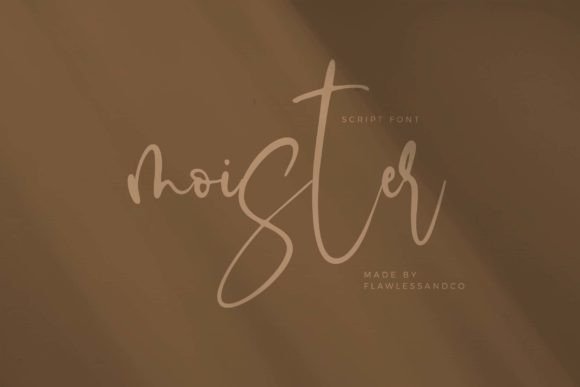
Moister Font
Craft Timeless Designs with Moister Script Font: Where Elegance Meets Distinction
In the world of design, where creativity thrives and expression reigns supreme, the Moister Font family emerges as a beacon of elegance and timeless beauty. This exquisite script font, meticulously handcrafted by the esteemed Flawless And Co., promises to ignite your imagination and elevate your projects to new heights of sophistication.
Moister's fluid strokes and graceful curves dance across the page, evoking a sense of effortless artistry. Its enchanting lines embody the essence of timeless design, effortlessly blending tradition with modernity. Whether you're a seasoned designer seeking a touch of elegance or a novice just beginning your creative journey, Moister will captivate your senses and unlock the door to design excellence.
Beyond its undeniable aesthetic appeal, Moister offers a wealth of versatility that empowers you to explore the depths of your imagination. Its inherent charm shines brightly across a myriad of design applications, from heartfelt wedding invitations and enchanting branding materials to captivating social media posts and eye-catching marketing campaigns.
Make a Lasting Impression: The Perfect Font for Creative Resumes
In the competitive world of job hunting, a well-crafted resume can make all the difference. Moister Font emerges as the ultimate choice for creating a creative resume that commands attention and leaves a lasting impression. Its elegant lines and refined style will set your resume apart from the mundane, showcasing your professionalism and attention to detail.
Moister's ability to convey both creativity and sophistication makes it the perfect font for highlighting your unique skills and experiences. Let the fluid strokes of Moister guide you as you craft a compelling narrative that showcases your journey, your aspirations, and your unwavering commitment to excellence.
With Moister as your design companion, you'll capture the attention of potential employers, igniting their curiosity and compelling them to delve deeper into your qualifications. Experience the transformative power of Moister and watch as opportunities unfold before you.
Unleash Your Inner Designer: A Myriad of Creative Possibilities
Moister Font's versatility knows no bounds, inviting you to explore the vast landscape of creativity. Its intrinsic elegance lends itself effortlessly to a multitude of design projects, empowering you to create stunning works of art that reflect your unique style and vision.
Elevate your branding materials with Moister's timeless charm, captivating your audience with a cohesive and visually striking brand identity. Design captivating social media posts that resonate with your followers, leaving a lasting impression that keeps them coming back for more.
From invitations and greeting cards to posters and flyers, Moister's graceful presence adds a touch of refinement to every project you undertake. Let your imagination soar as you discover the endless possibilities that await you with Moister as your creative ally.